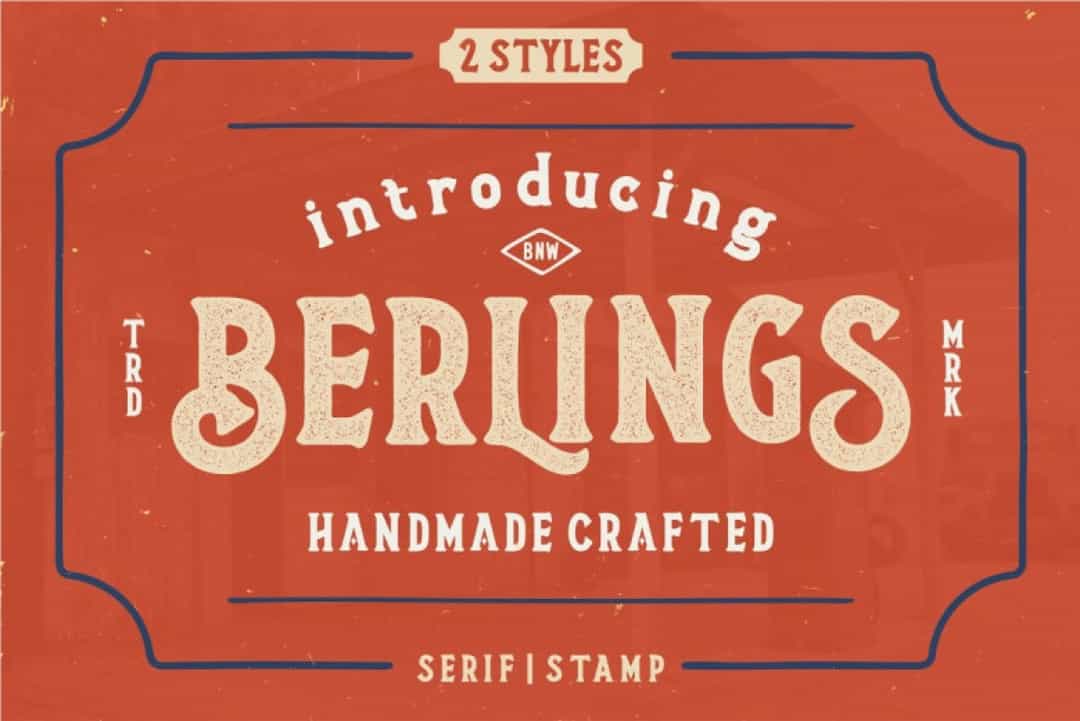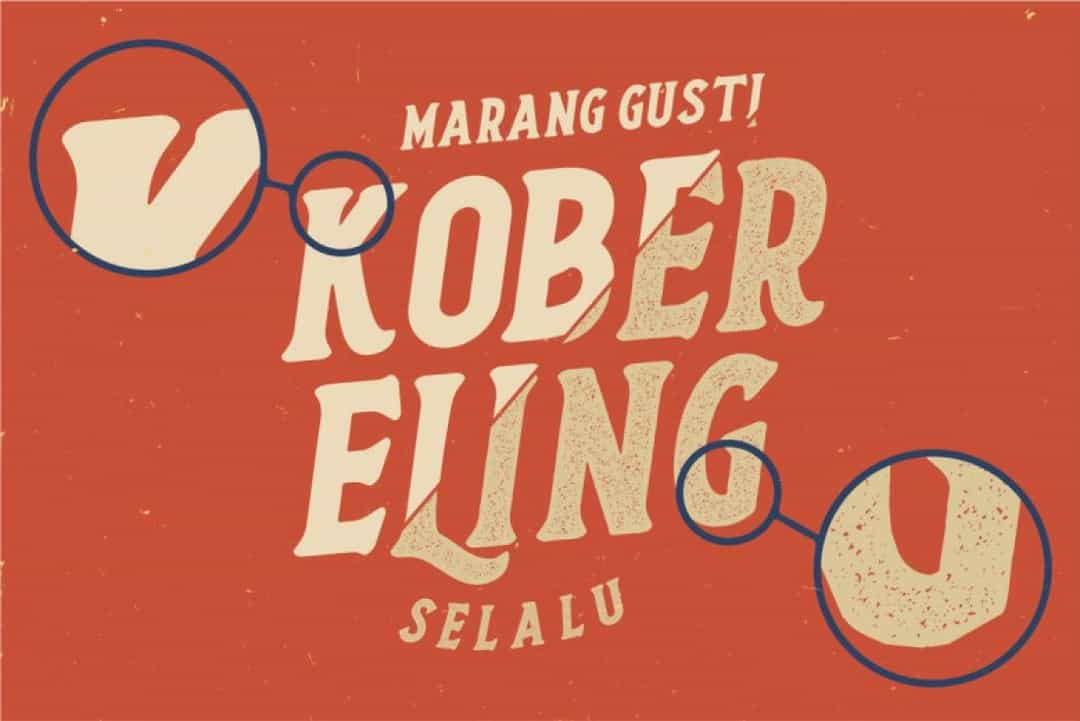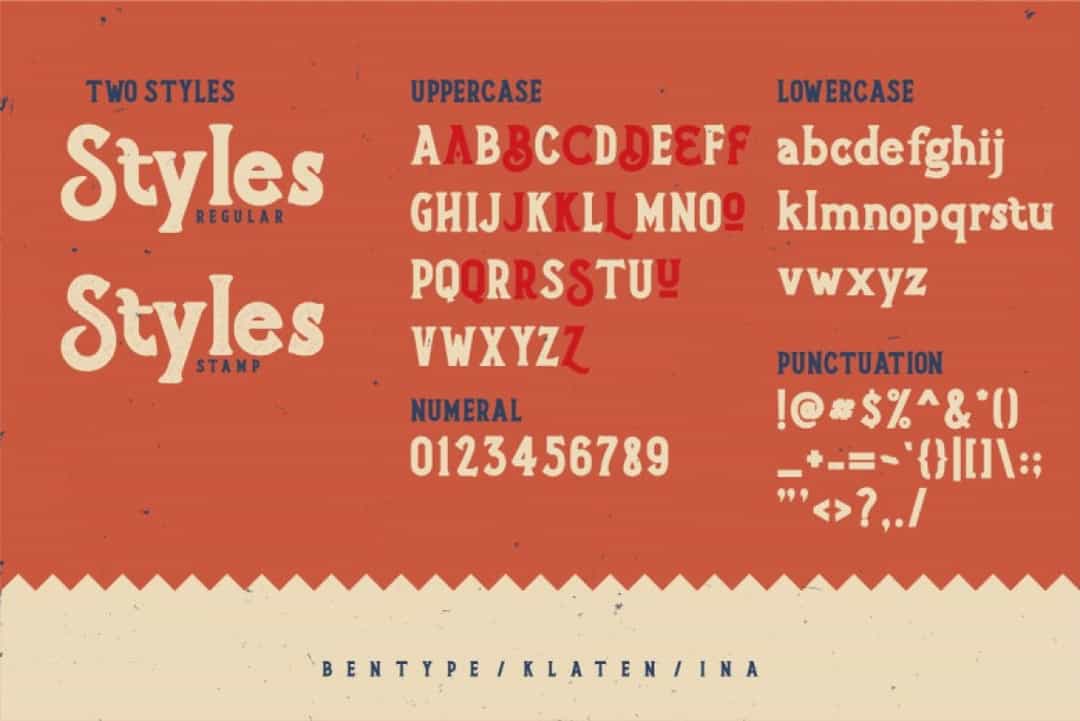
Berlings is a classic vintage reduced serif font perfect for period or retro branding projects, featuring its distinct design to bring anything original and creative to your designs. Add it to your library of fonts for elevated work!